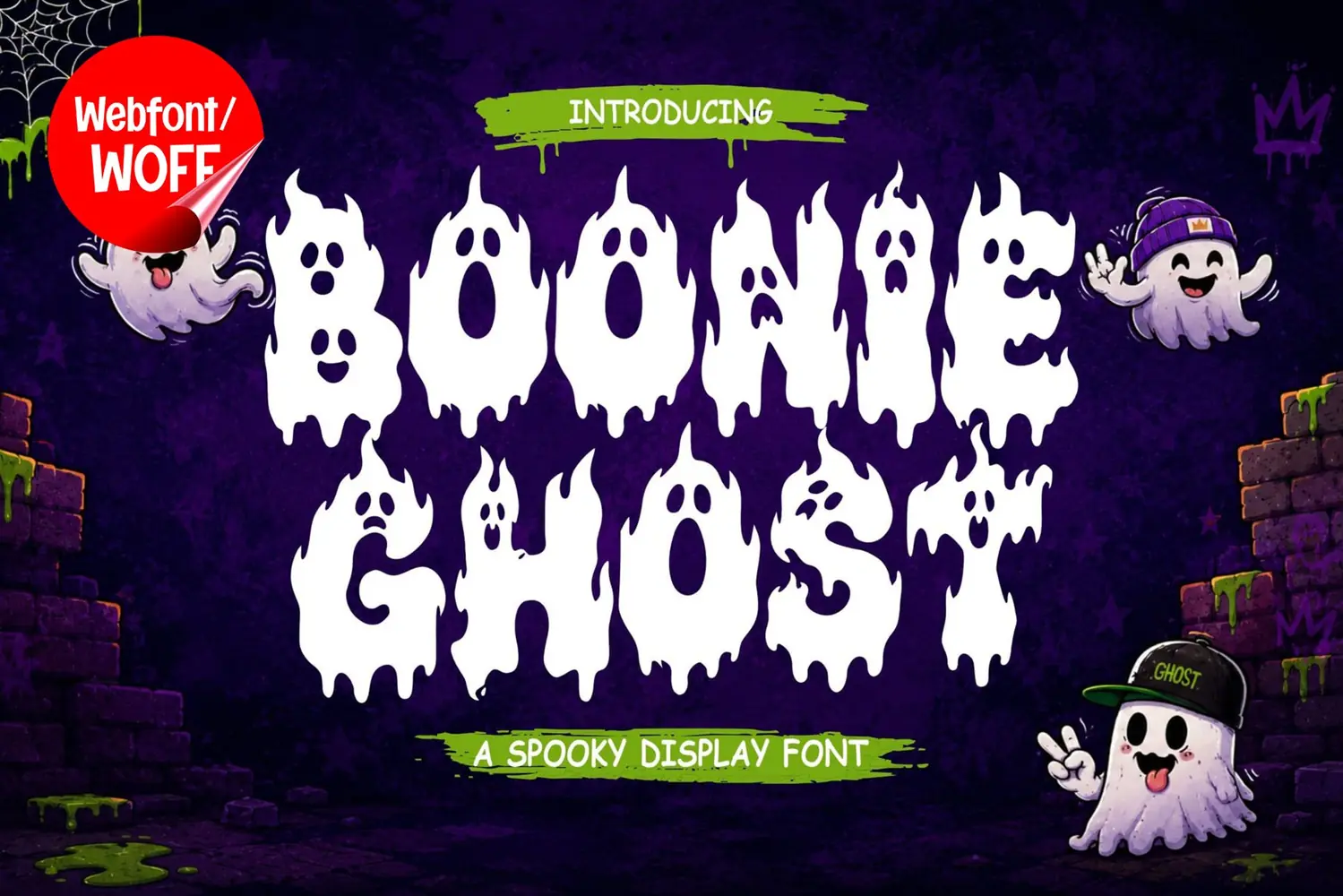
Boonie Ghost Webfont Spooky Halloween Display Web Design
Bring a fun supernatural atmosphere to your digital projects with Boonie Ghost Webfont, a playful spooky display typeface inspired by ghosts, Halloween, creepy cartoons, and haunted aesthetics.
Boonie Ghost features bold, melting letterforms with expressive ghost-inspired details that give your typography an instantly recognizable Halloween personality. Its unusual shapes are ideal for website headlines, Halloween landing pages, online event promotions, digital posters, gaming websites, blogs, online stores, social media campaigns, and seasonal branding.
Designed primarily as a display typeface, Boonie Ghost works especially well for large titles, hero sections, promotional banners, campaign graphics, and other prominent digital typography where you want to create a memorable visual impression.
Its combination of cute cartoon energy and spooky horror styling makes the font versatile for both family-friendly Halloween projects and more mysterious seasonal designs. Use it for haunted-house promotions, Halloween parties, game interfaces, merchandise websites, spooky blogs, digital invitations, or creative online campaigns.